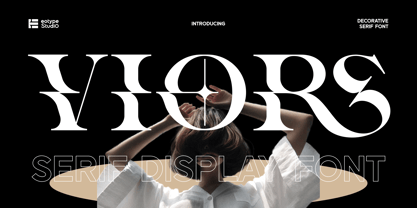
Viors
by Eotype
The Viors Font Family was designed by Fajar Ramadan and published by Eotype. Viors contains 1 styles.
Mica a decorative serif font is a typeface that blends the traditional elegance of serif fonts with ornamental and artistic elements. It features the characteristic small strokes or lines (serifs) at the ends of the letters, but with added embellishments such as flourishes, intricate details, or unique shapes. These fonts are designed to be visually striking, often used in headlines, logos, or any context where typography needs to make a strong, stylish impact. Decorative serif fonts are perfect for creating a sense of sophistication, creativity, and flair in design
Designers: Fajar Ramadan
Publisher: Eotype
Foundry: Eotype
Design Owner: Eotype